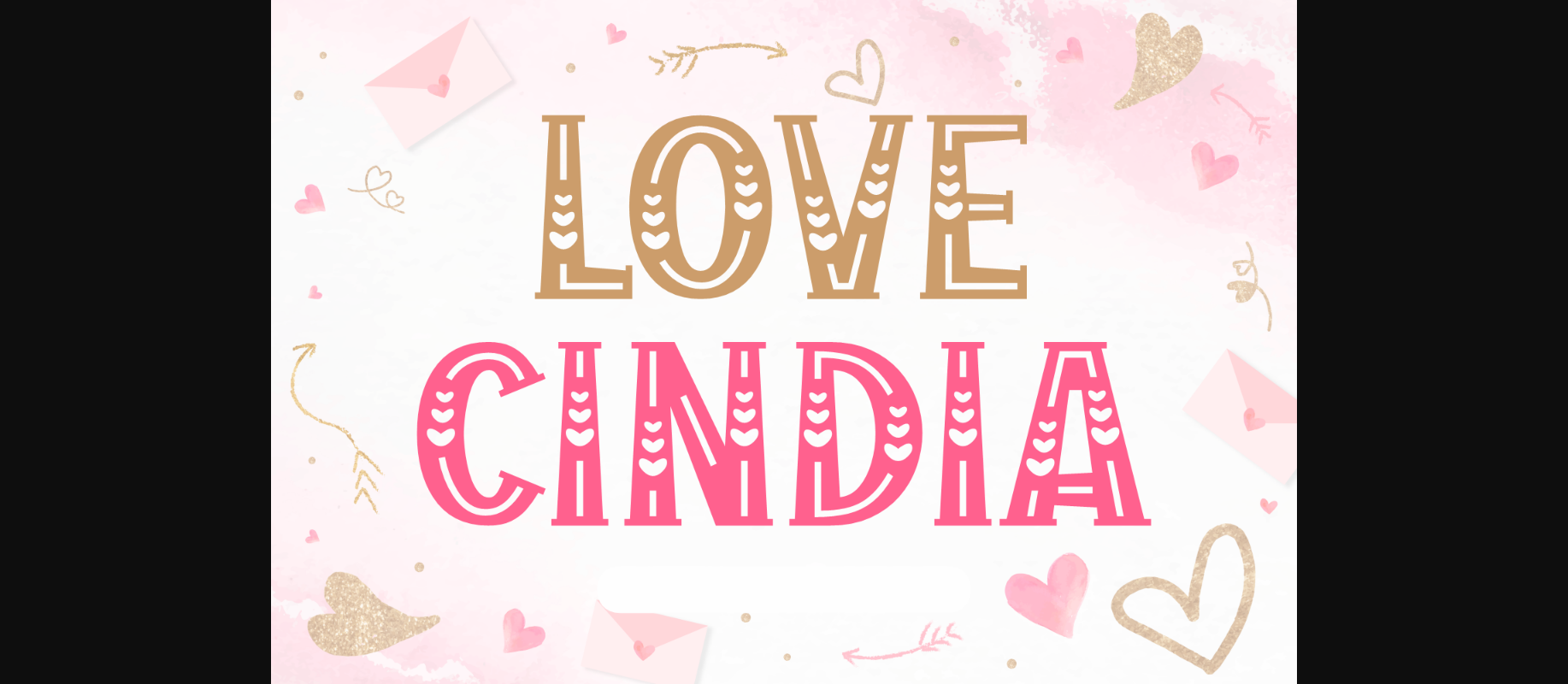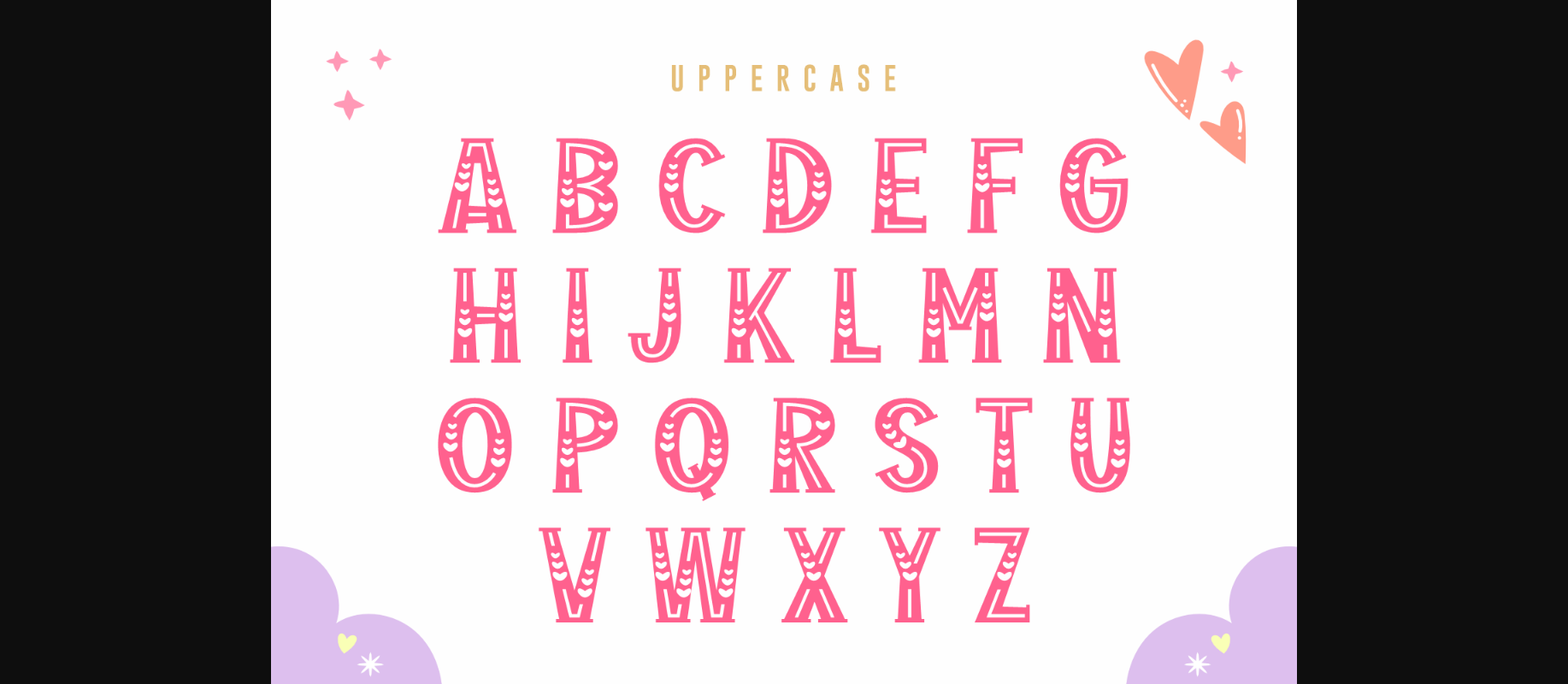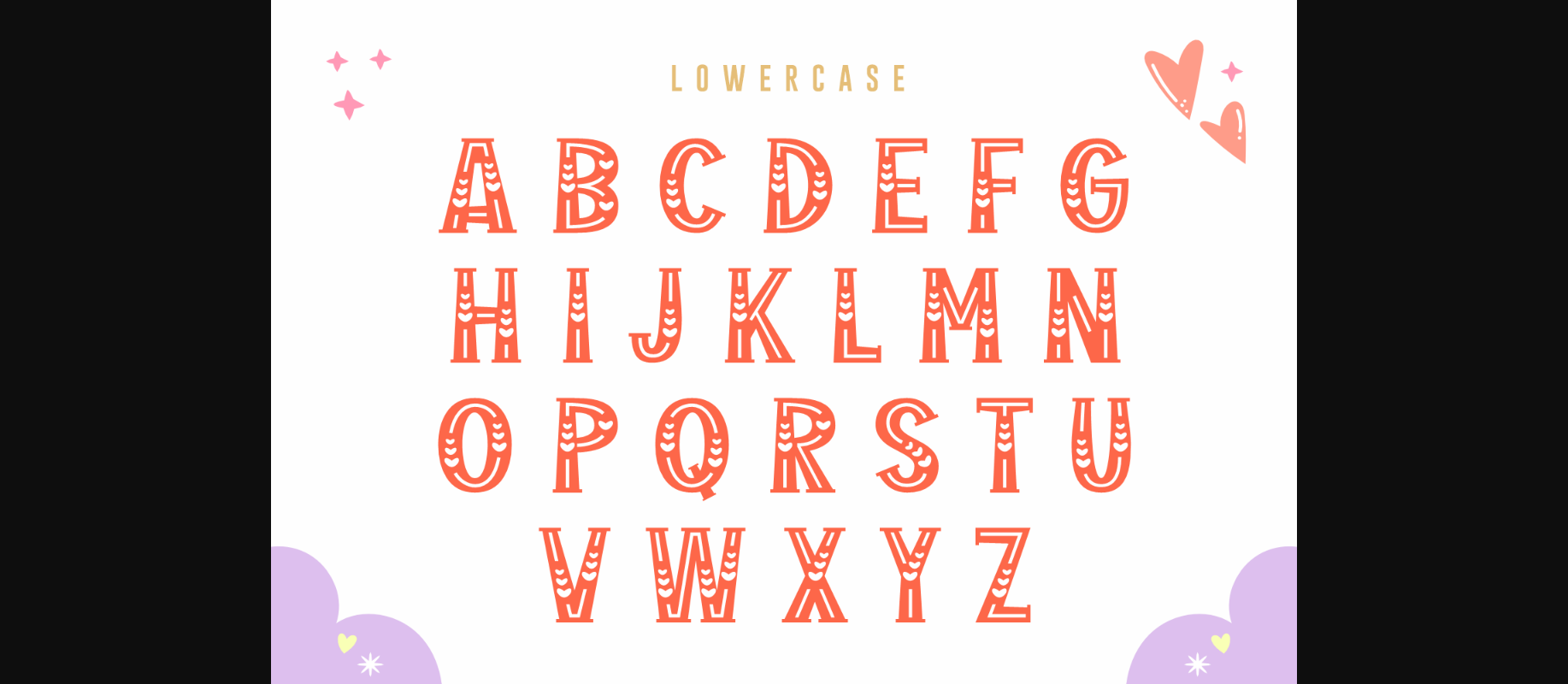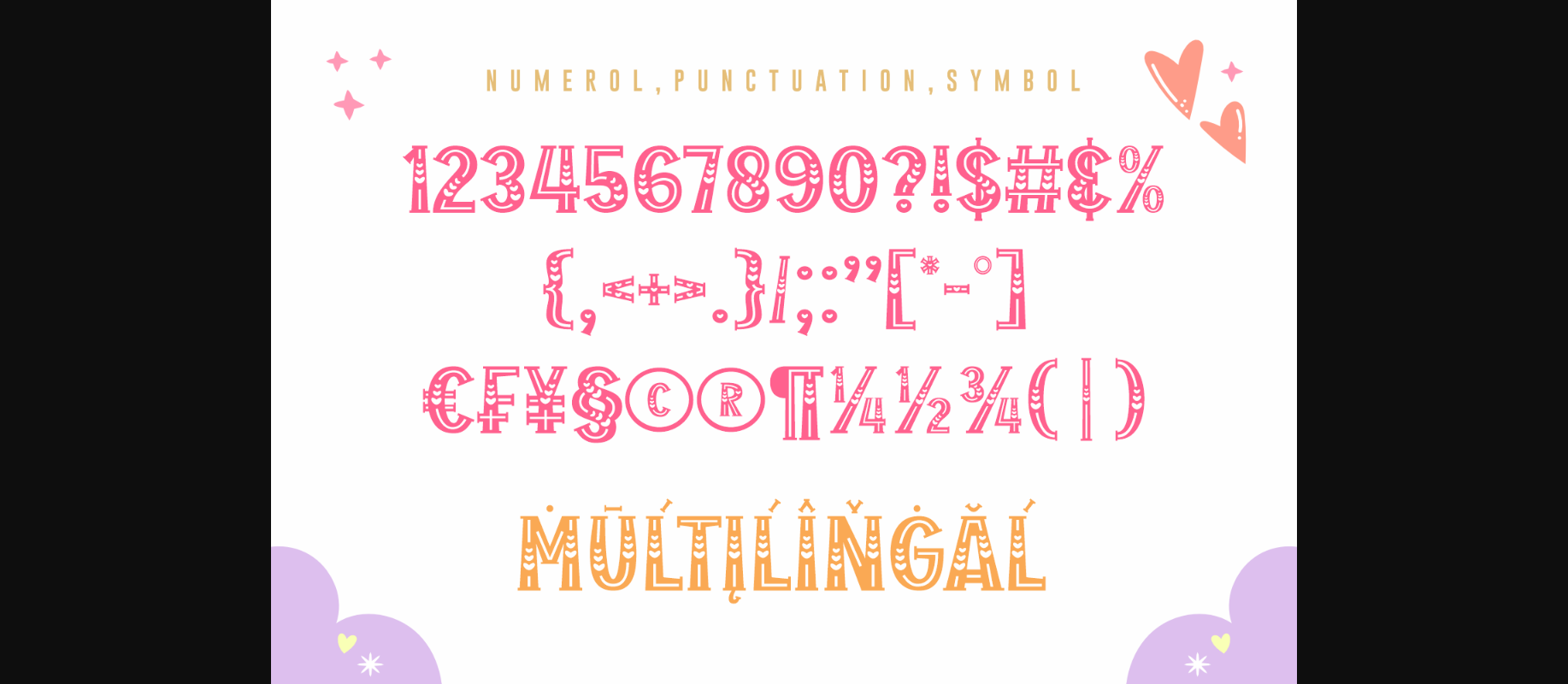
Love Cindia Font
About Love Cindia Font
Love Cindia is the cutest decorative font out there. Featuring adorable little hearts throughout its letters, Love Cindia will help you add the right amount of romanticism to your designs.